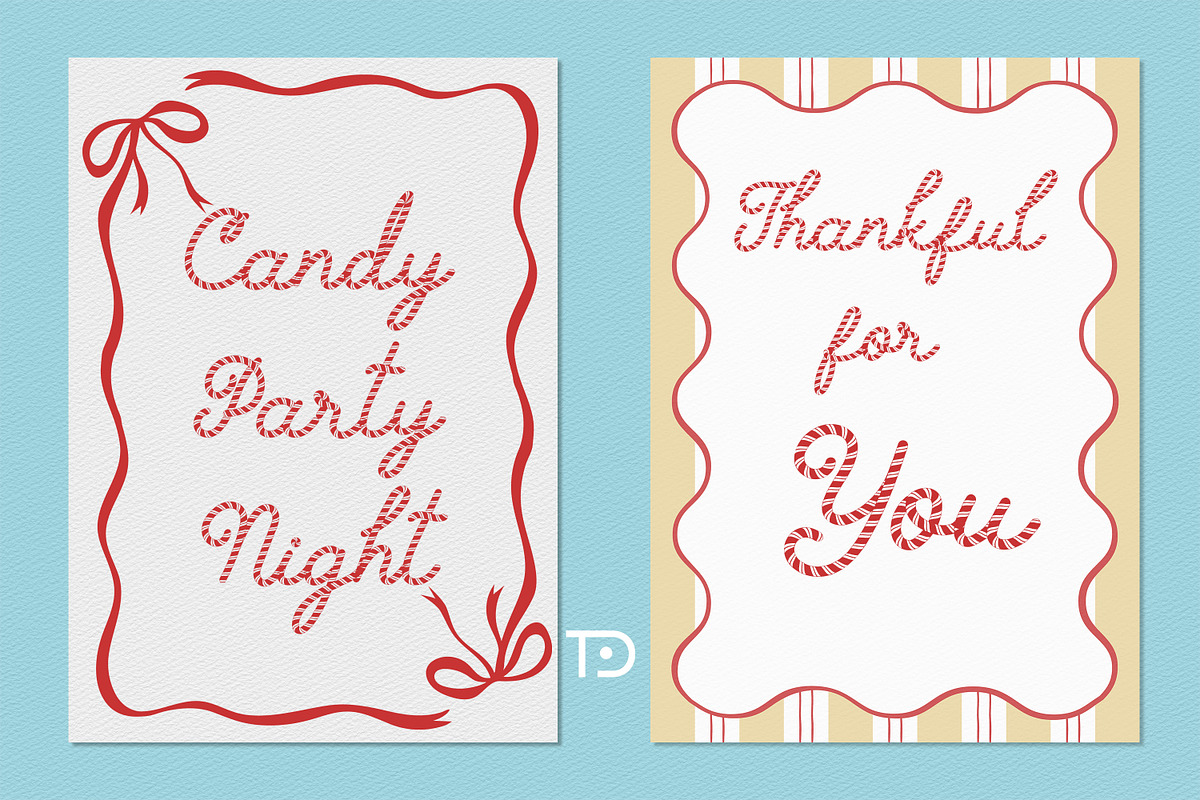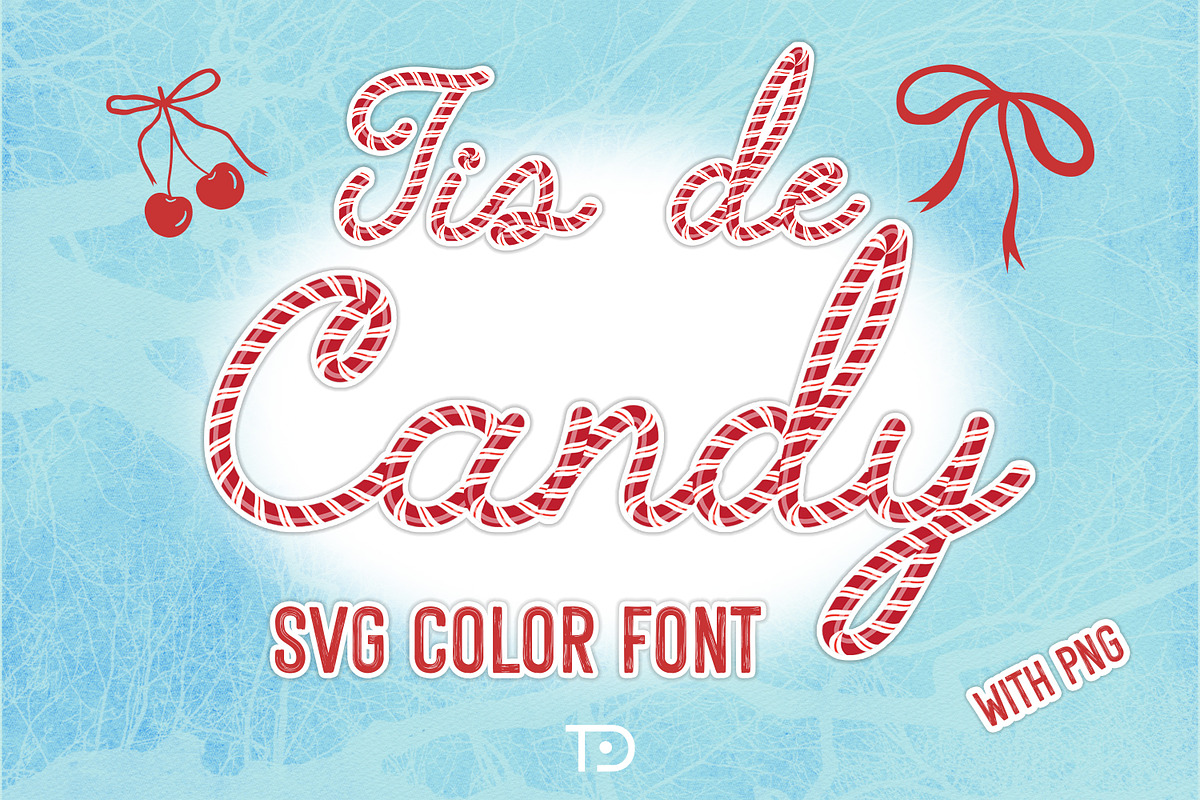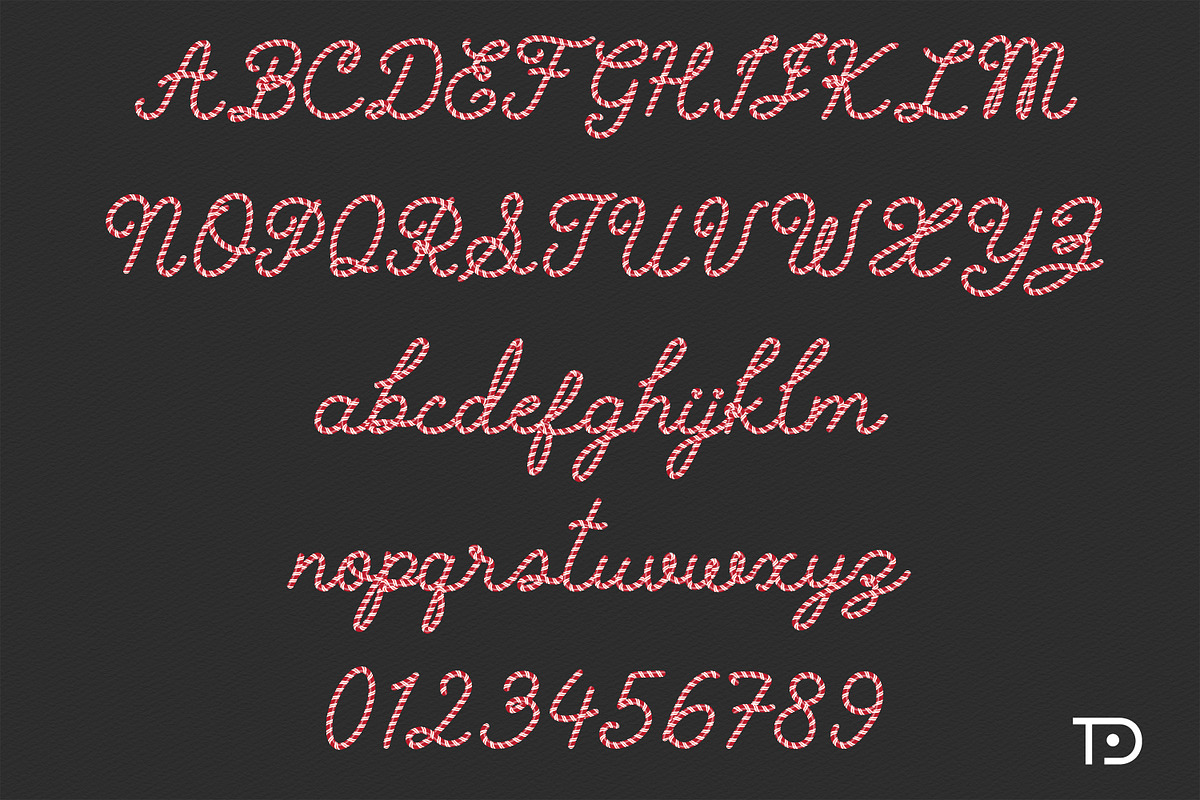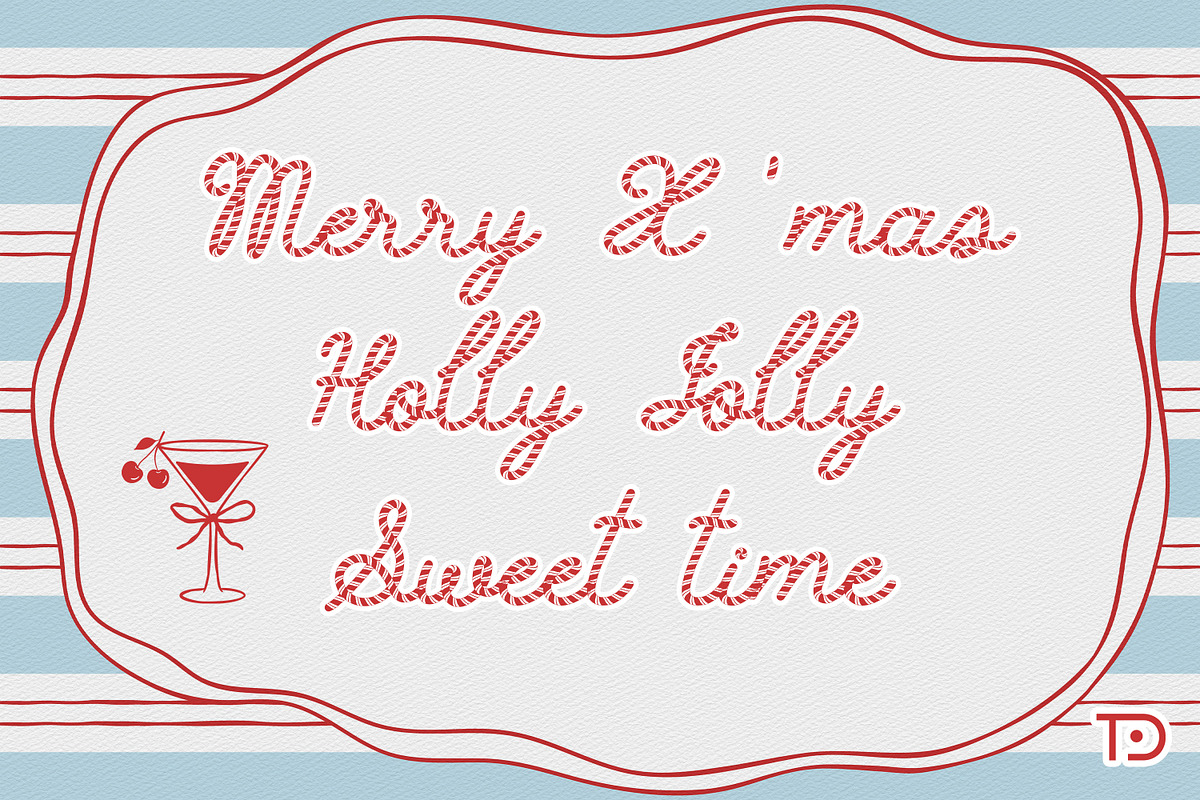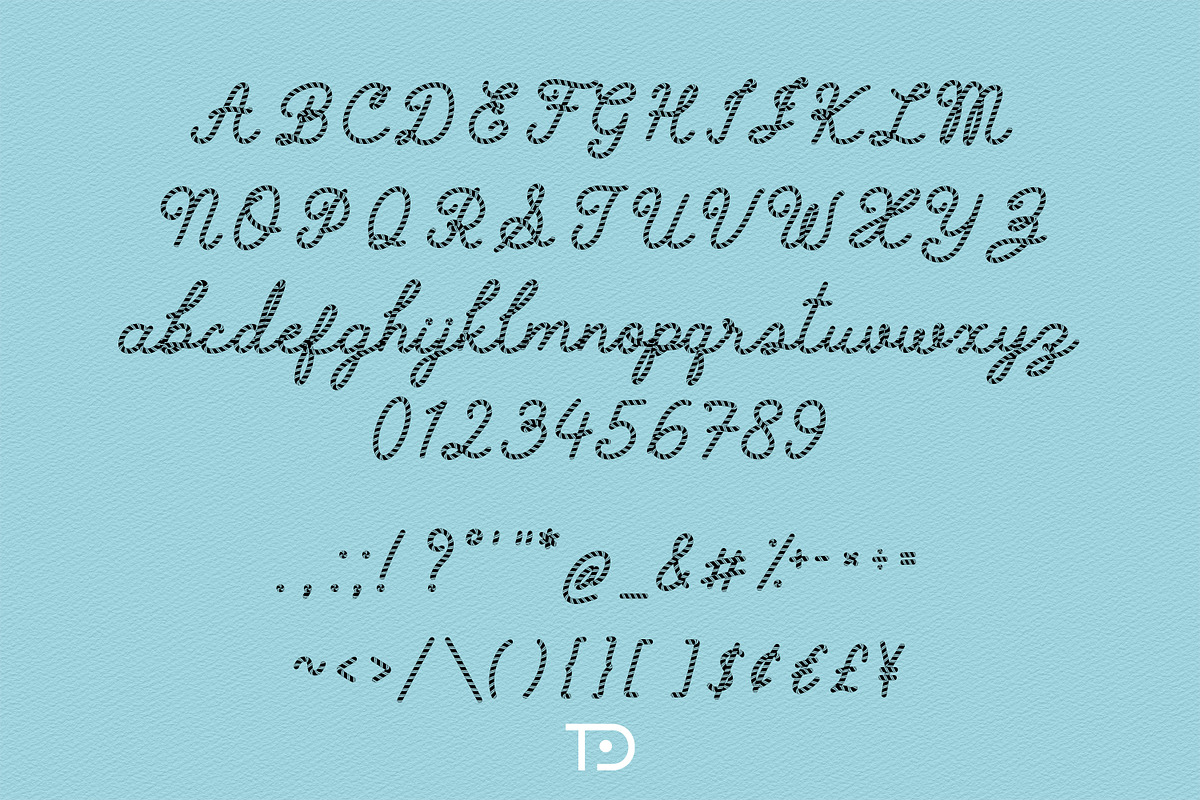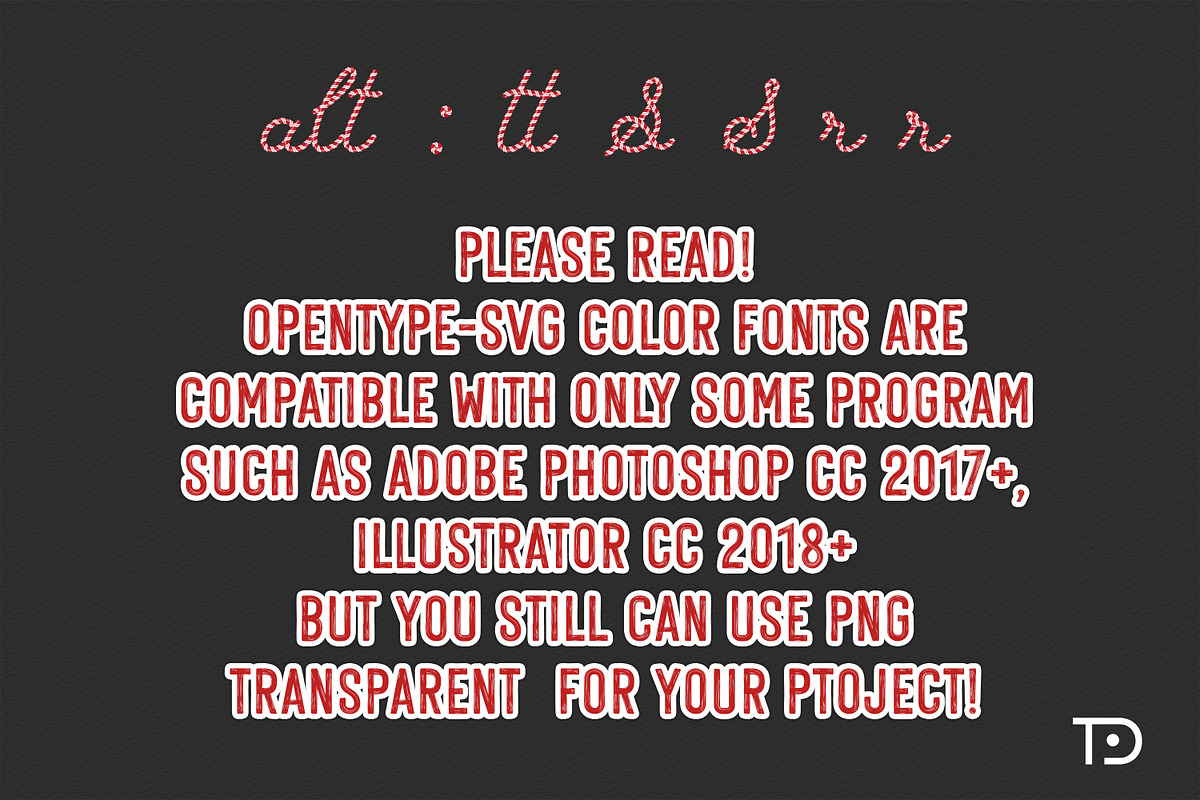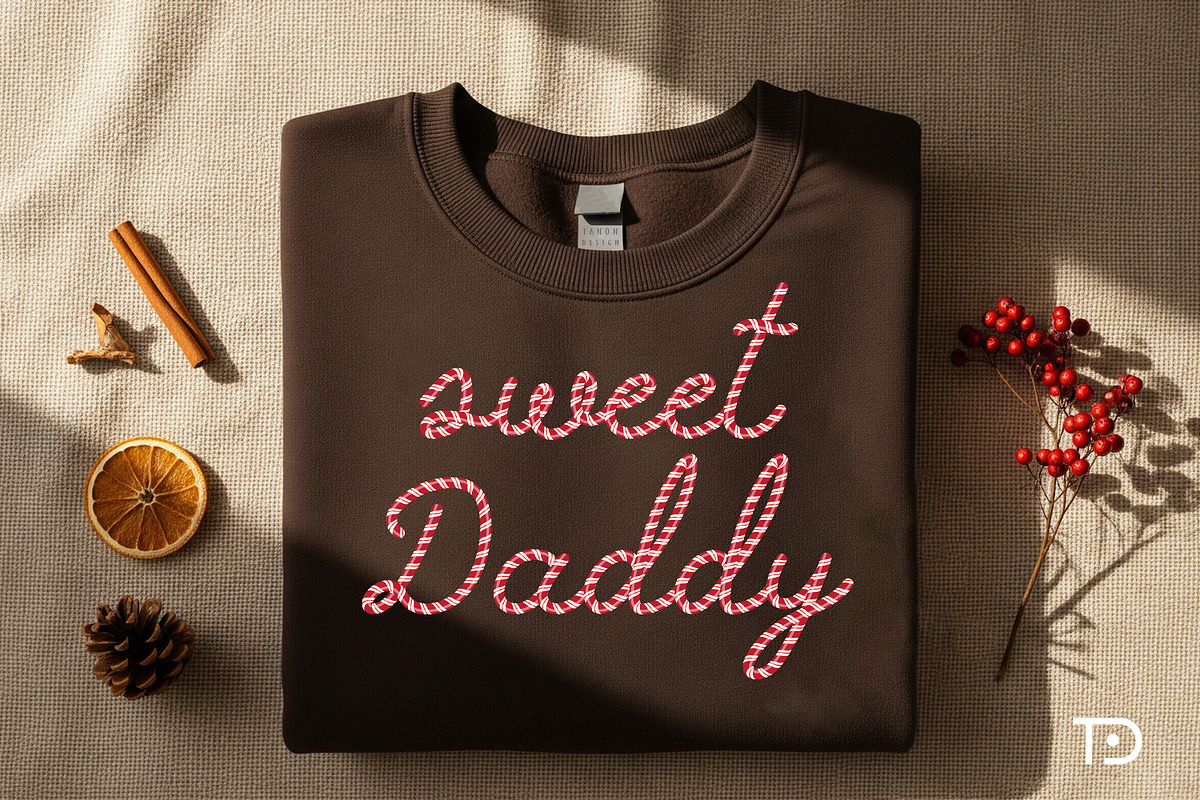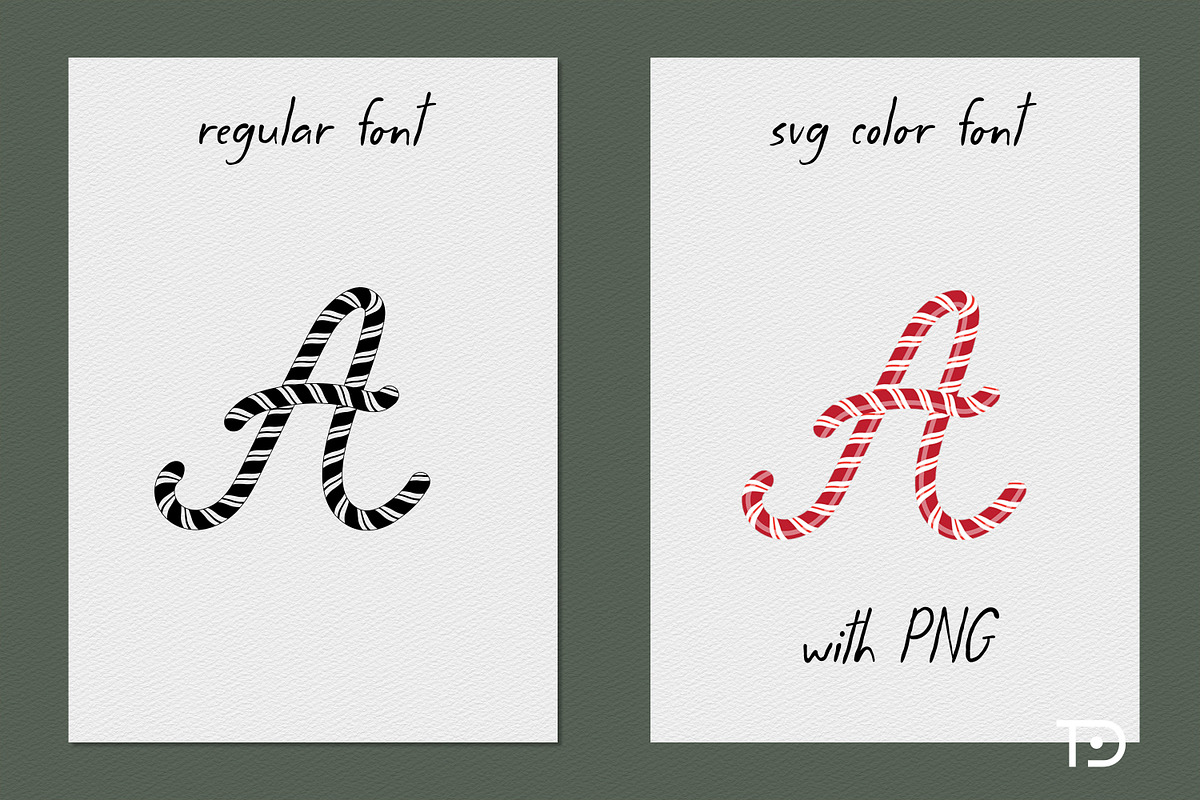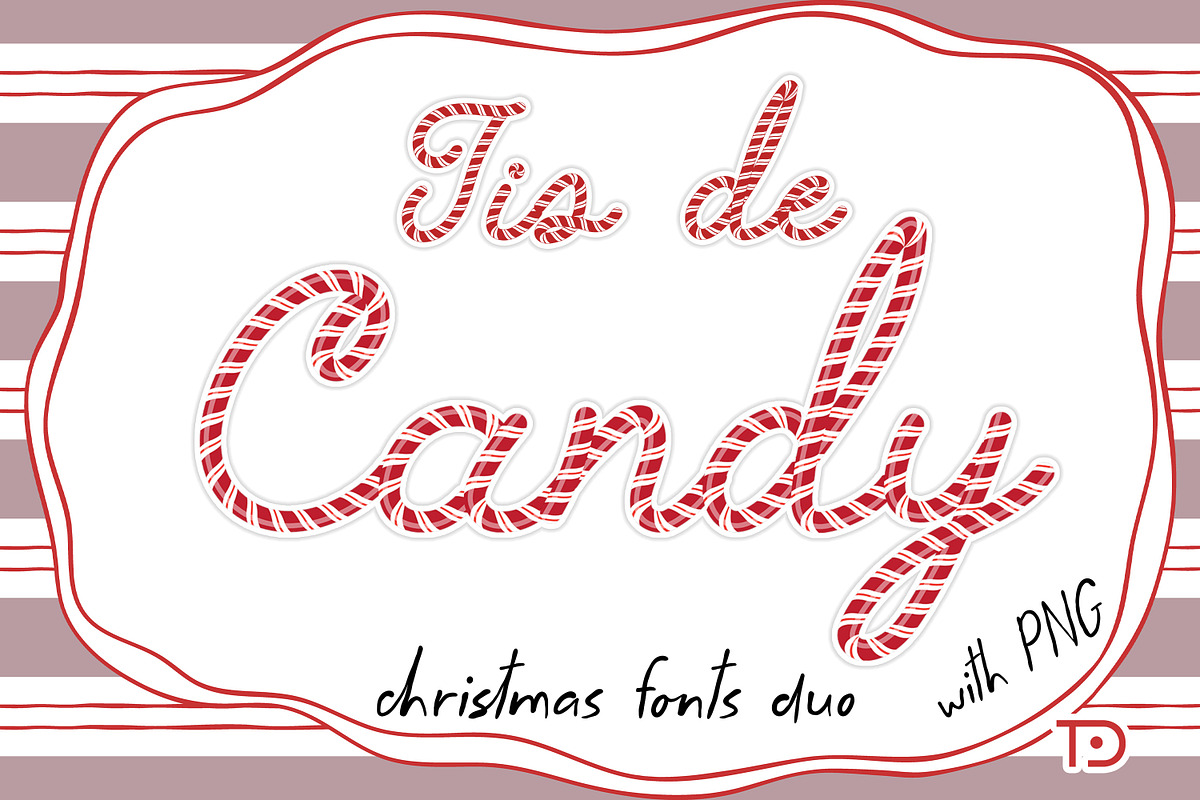
Tis De Candy Font Duo
Tis de Candy duo fonts is a fun and festive display font. It will look fantastic on all your Christmas-themed designs including t-shirt designs, mug designs, digital designs, crafts, cards, and any projects!